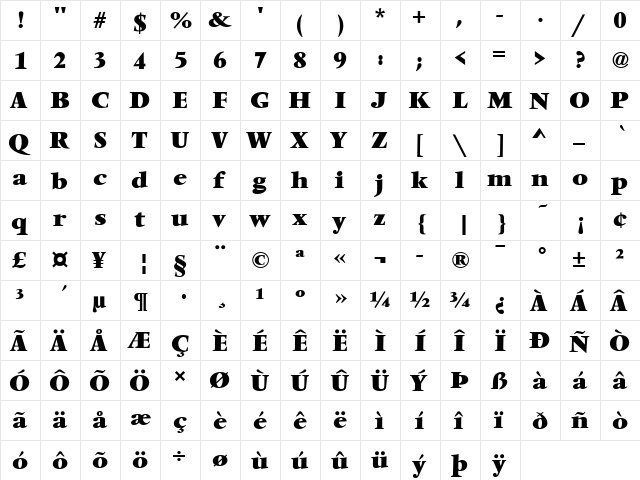
Vendome T Bold
Design Context for Vendome T Typeface
Vendome T is a composed and adaptable typeface that performs quietly and consistently across a wide range of design contexts. Its bold stroke weight gives it real presence on the page.